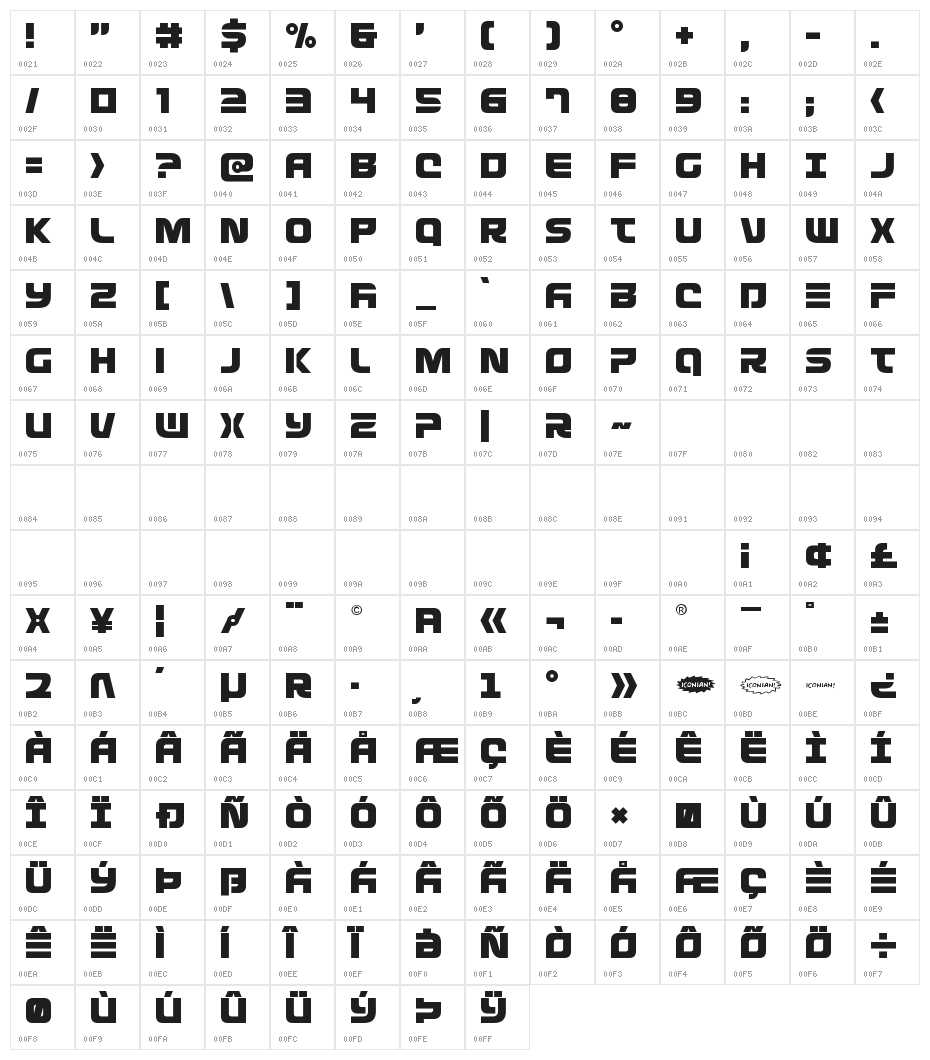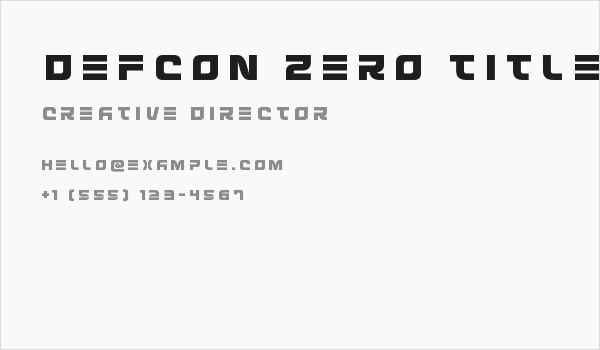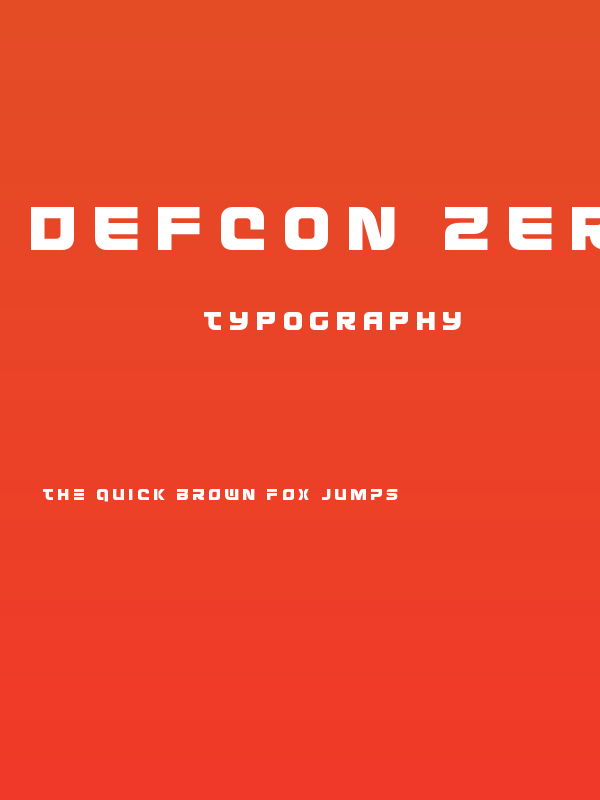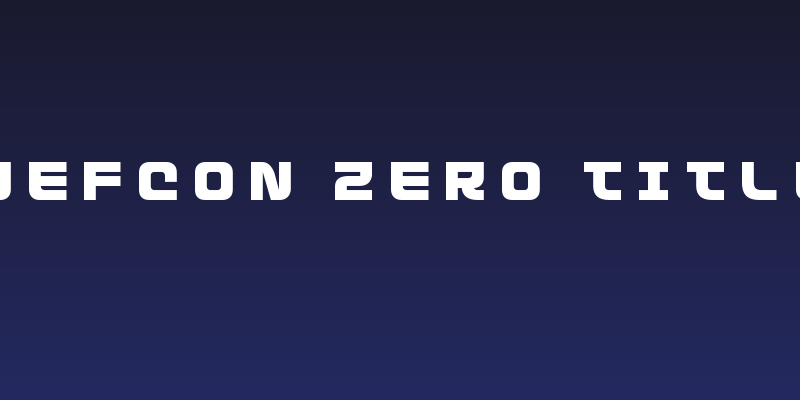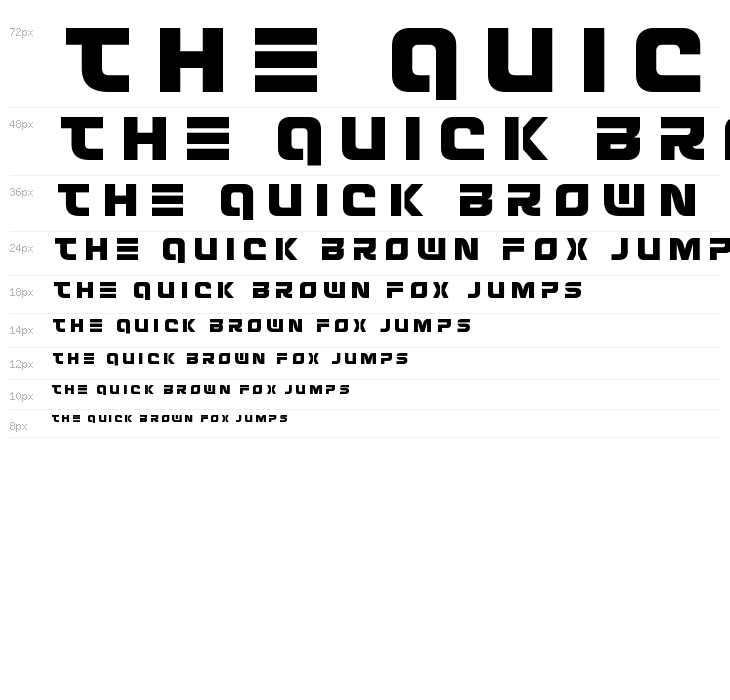
Defcon Zero Title Font
Defcon Zero Title Description
This font features a bold, futuristic design with a strong geometric influence. The characters are blocky and robust, with a consistent thickness throughout each letterform, giving it a uniform appearance. The angular cuts and sharp edges contribute to its modern and technological feel. The uppercase and lowercase letters maintain a cohesive style, while the numerals and special characters complement the overall aesthetic. This font is highly legible and makes a strong visual impact, suitable for digital and print media.
| Proposed Projects | Ideal for technology branding, video game titles, sci-fi movie posters, and digital interfaces. |